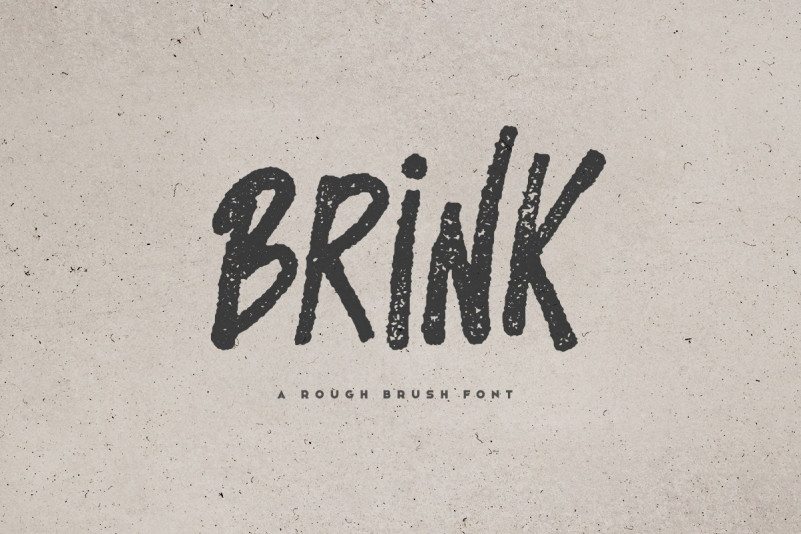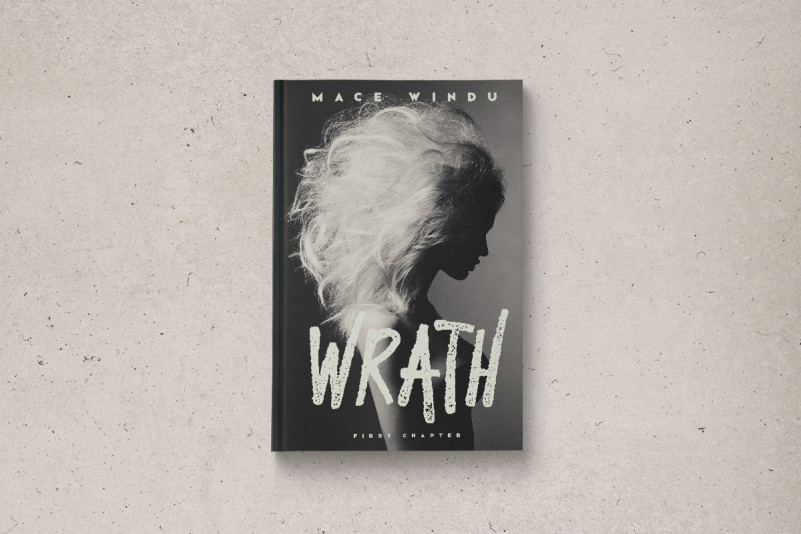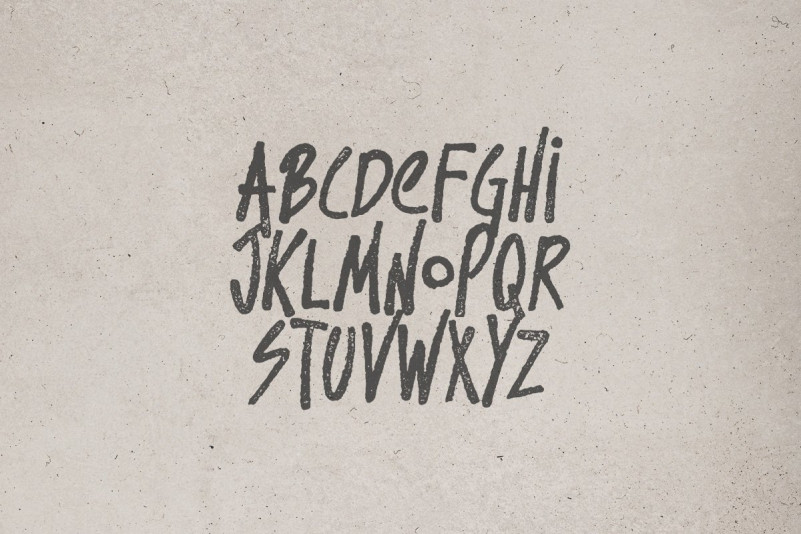
Brink – Brush Font
Brink is a rough brush font with alternate letters that can be toggled with caps lock. It includes multilingual uppercase letters, numbers and punctuatio